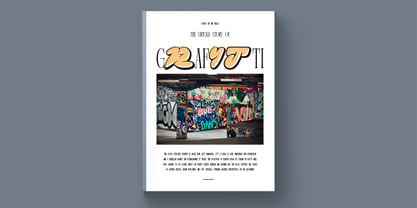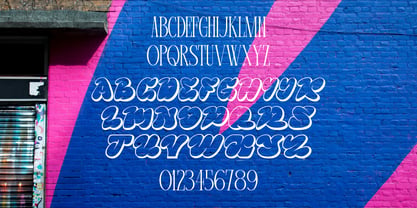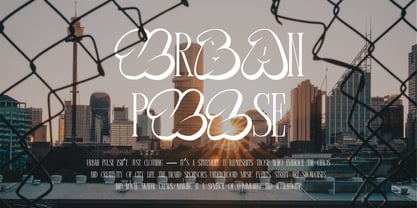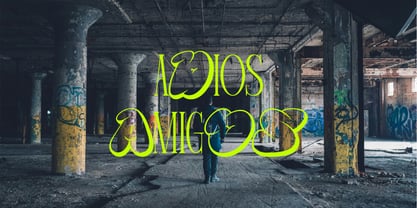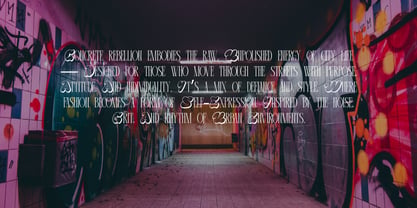
Funny Tummy
Funny Tummy is a bold and playful hybrid display font that creatively fuses the elegance of a tall serif with the expressive energy of graffiti-style bubble lettering. This unique combination results in a fun and eye-catching typeface that feels both rebellious and stylish. The exaggerated, rounded forms of the graffiti elements contrast sharply yet harmoniously with the slim, high-contrast serifs, creating a dynamic and unexpected visual rhythm. Ideal for posters, music event branding, streetwear designs, and youth-oriented content, Funny Tummy brings a vibrant, street-smart attitude while maintaining a touch of typographic sophistication.